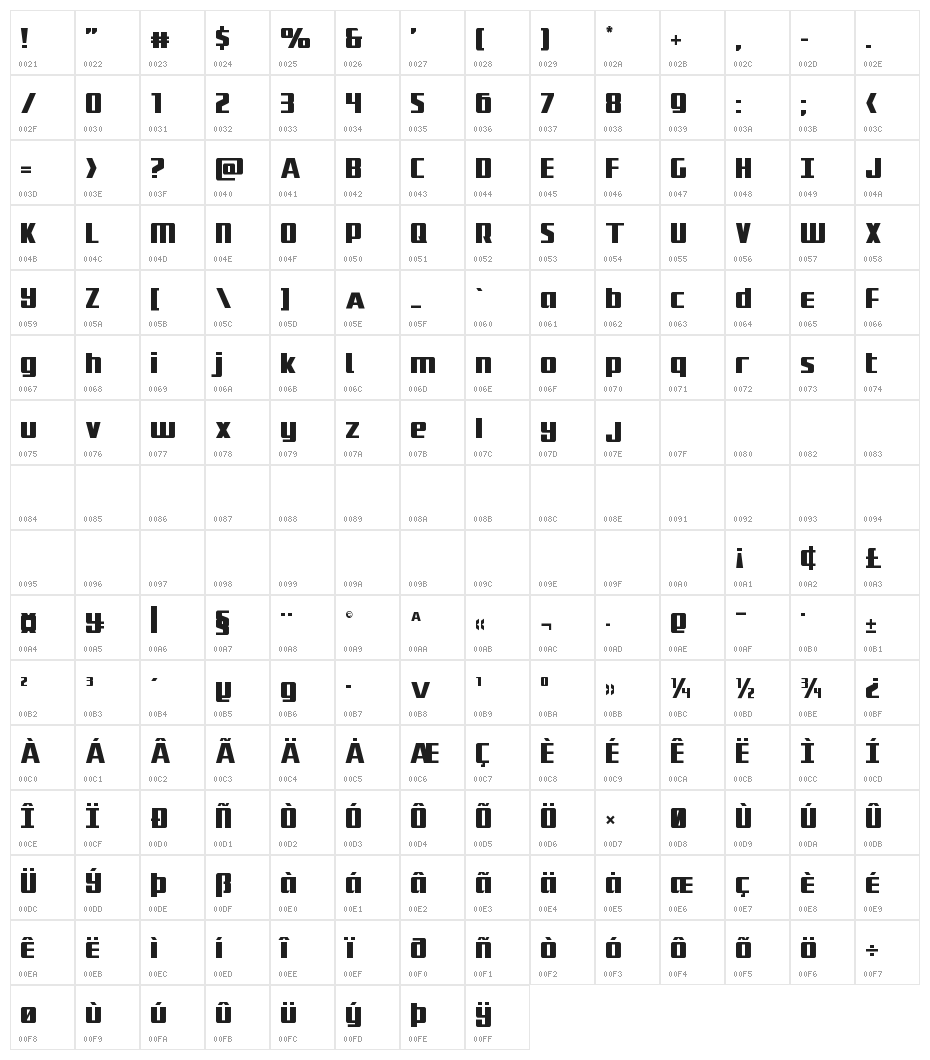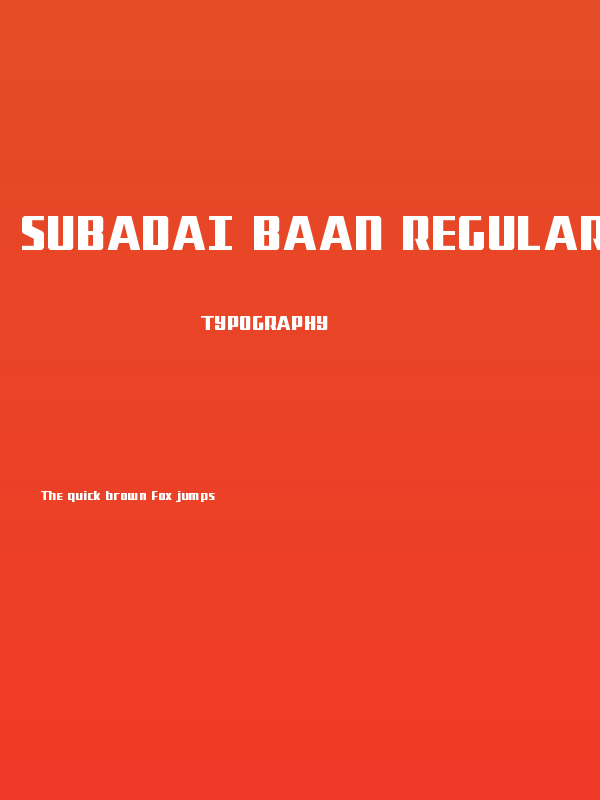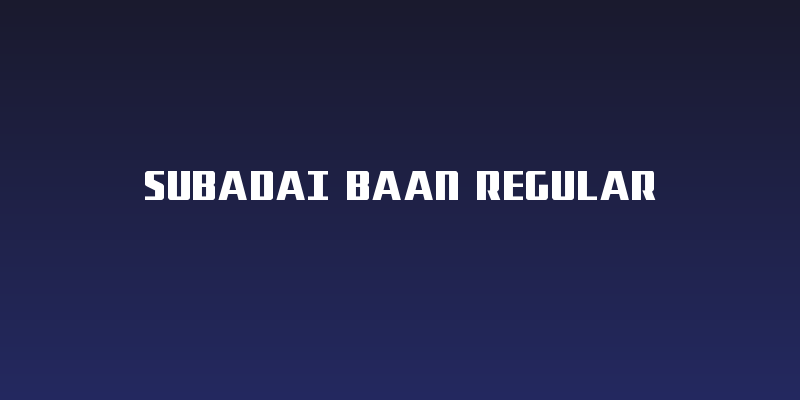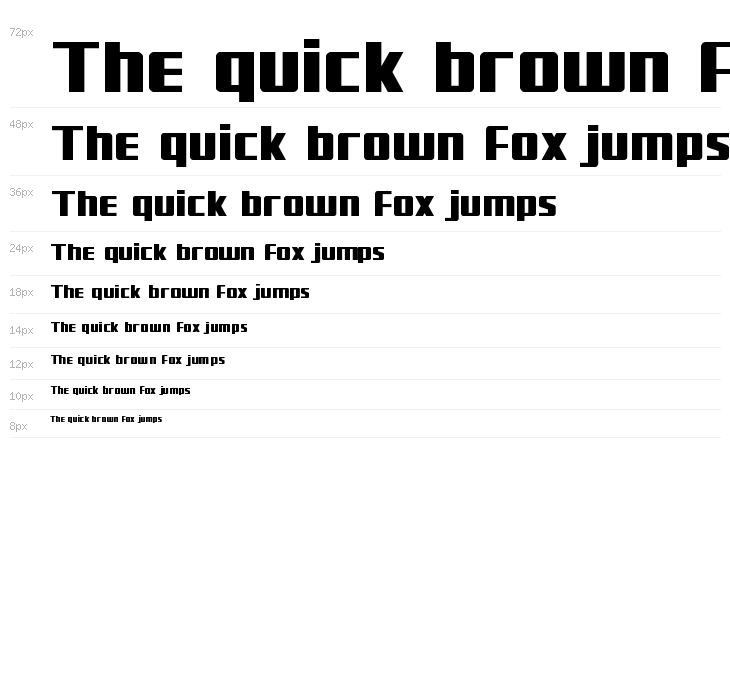
Subadai Baan Regular Font
Subadai Baan Regular Description
This font features a bold and geometric design, characterized by its strong, block-like appearance. The uppercase and lowercase letters maintain a consistent height, giving it a uniform look. The strokes are thick and even, with minimal contrast, lending a sturdy and impactful presence. The characters are slightly condensed, which enhances its compact and robust style. The numbers and special characters follow the same bold and structured design, ensuring a cohesive appearance across all elements. This font is ideal for making a strong visual statement.